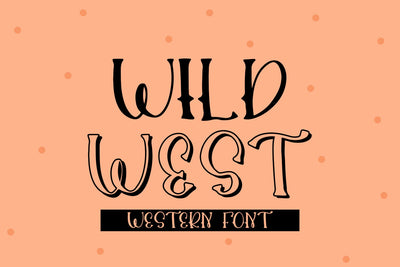
Wild West - A Western Font
Saddle up and embrace the wild frontier with Wild West Font: The perfect typographic companion for all your western-inspired designs!
Yeehaw! Get ready to lasso some serious design inspiration with Wild West Font. This rugged typeface captures the essence of the untamed American frontier, bringing the spirit of the Old West to your creative projects. With its bold upper case letters and unique outlined versions, this font will transport you straight to the dusty plains and epic cowboy adventures!
- Wild West - Comes with Uppercase A-Z and lowercase a-z letters, 0-9 numbers, stylistic alternates, limited punctuation and supports Western European Languages